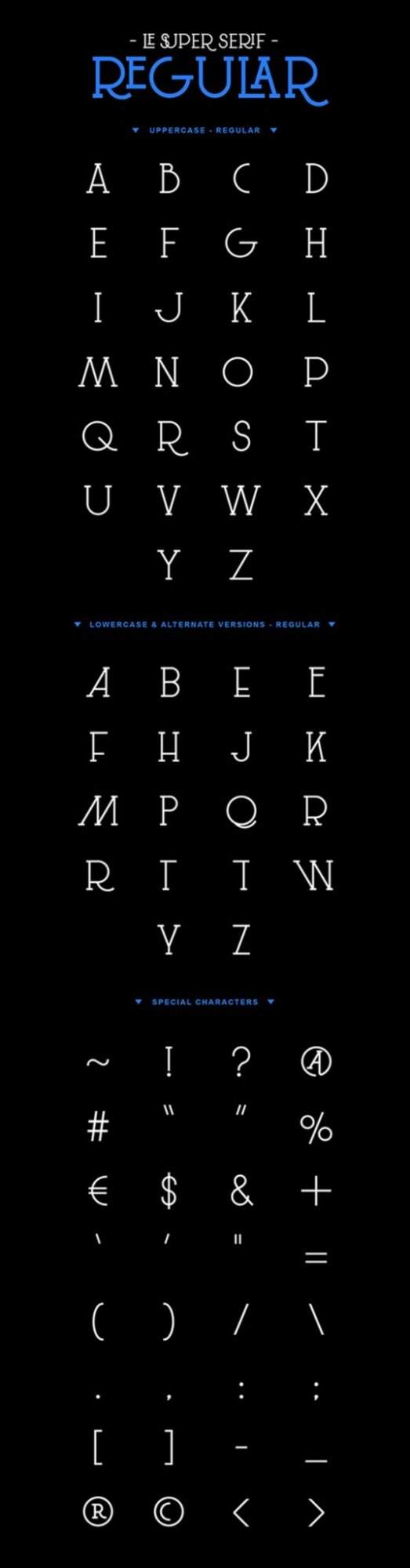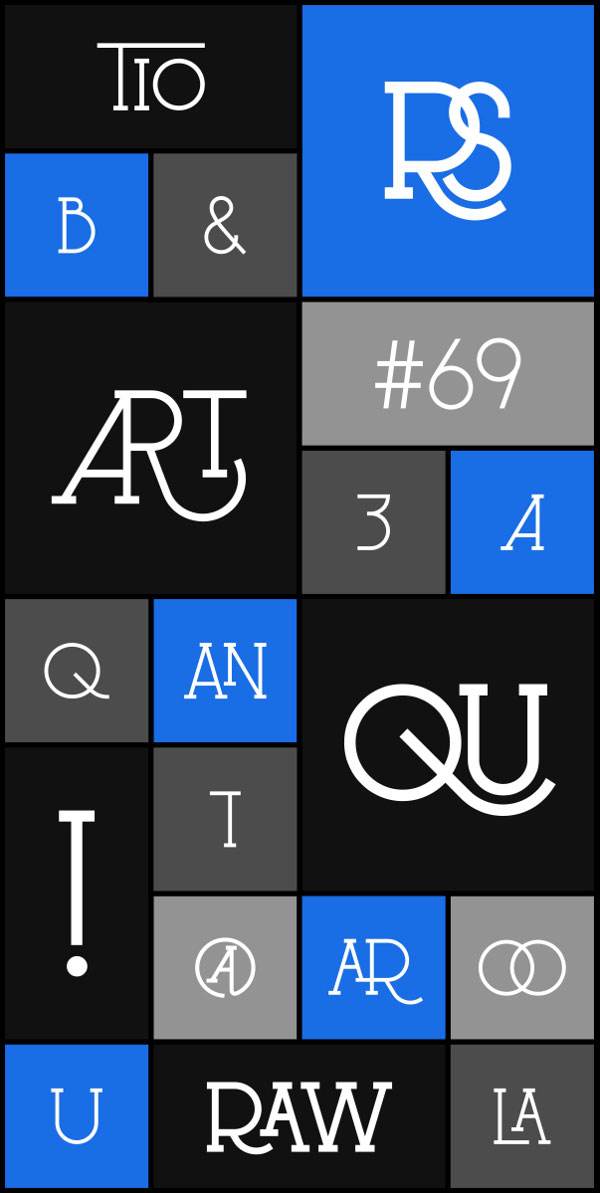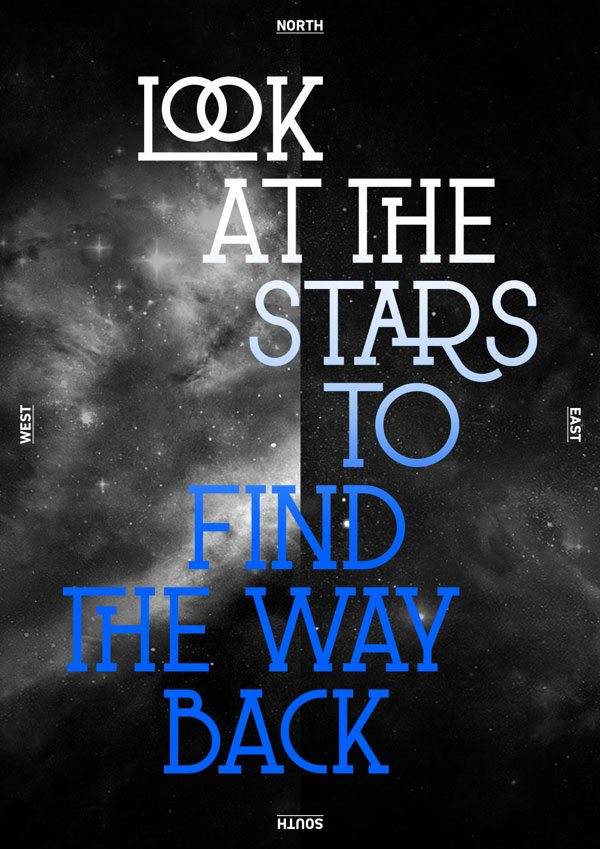
Le Super Serif Font
Font pack by SuperBruut. Fashionable uppercase typeface with a bit of modern western flavor to it. It includes 88
ligatures and some “special” alternate characters. And comes in the weights regular & semi-bold.